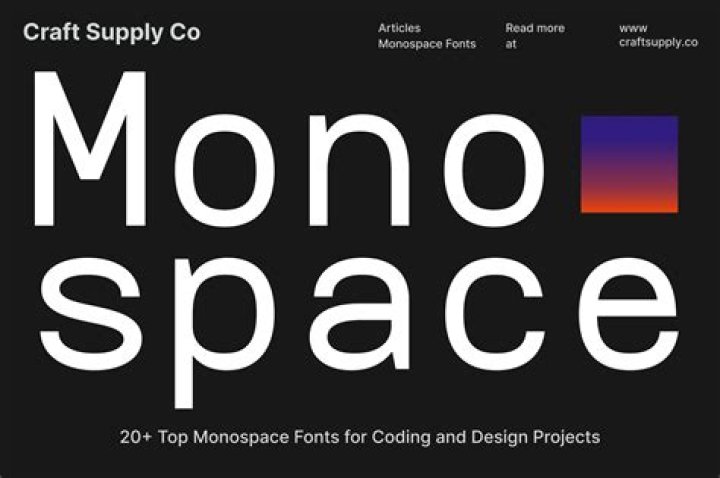
The only monospaced TrueType fonts shipped by Microsoft are Courier New, which shipped with Windows 3.1, and Lucida Sans Typewriter, which was included in the TrueType Font Pack.
What is the difference between proportional and monospace fonts?
Definition. Proportional font is a font where each character occupies only as much width as it needs. Monospaced font (also called a fixed-pitch, fixed-width, tabular, or non-proportional font) is a font where each character occupies the same amount of space on a horizontal line of text.
Why are monospace fonts important?
Benefits and Disadvantages of Monospace Fonts Setting text in a monospace font makes it easier to identify characters by themselves. Because of this, tasks that rely on the easy identification of specific characters, such as programming, benefit from the use of a monospace font.
How can you tell if a font is monospaced?
How to tell if a font is monospaced
- Go into your graphic design program and create a new text box.
- On the first line write, “111111111”
- Hit enter and on the next line write, “999999999”
- Compare the two lines of text. If the 1s and 9s line up, the font is monospaced. If they don’t, it’s proportional.
What are the best monospaced fonts?
- MonoLisa. MonoLisa is a wonderfully clear font (Image credit: MonoLisa)
- Apercu Mono. The Mono version of Apercu has four variations (Image credit: Colophon foundry)
- Fira Code. Fira Code is a font with coding ligatures designed for Mozilla (Image credit: Mozilla)
- Input Mono.
- Dank Mono.
- Gintronic.
- Monoid.
- Hack.
What does monospace mean in CSS?
In the above example, “Courier” and “Monaco” are real family names of actual fonts, whereas “monospace” is just a generic reference to any font installed on the user’s system that’s monospaced. Generic family names include serif , sans-serif , cursive , fantasy , and monospace .
What is monospace font in HTML?
The HTML element creates inline text which is presented using the user agent’s default monospace font face. The terms non-proportional, monotype, and monospace are used interchangeably and have the same general meaning: they describe a typeface whose characters are all the same number of pixels wide.
What is monospace in HTML?
Is courier a monospaced font?
Courier is a monospaced slab serif typeface. The typeface was designed by Howard “Bud” Kettler (1919–1999). Initially created for IBM’s typewriters, it has been adapted to use as a computer font and versions of it are installed on most desktop computers.
What is monospaced type give an example?
The term modern can be used for a fixed-pitch generic font family name, which is used in OpenDocument format (ISO/IEC 26300:2006) and Rich Text Format. Examples of monospaced fonts include Courier, Lucida Console, Menlo, Monaco, Consolas, Inconsolata and Source Code Pro.
What fonts have the same width?
Some fonts use different character widths for different characters. In such fonts an “m” will have a greater width than an “i”. They are called proportional fonts. These fonts have a nicer-looking and are easier to read. Fonts where all the characters have the same width are called monospaced fonts.
What does monospace mean?
monospace(Verb) To type, typeset, or design text using a typeface that has the same width for each character. monospace(Adjective) Pertaining to a typeface that has the same width for each character.
What is Mono font?